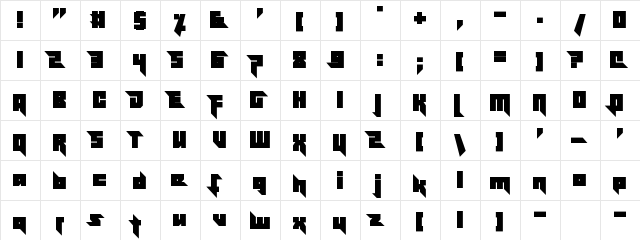
Effective Power Regular
Design Context for Effective Power Typeface
Effective Power has the bold swagger of sports branding: strong, assertive letterforms designed to dominate headlines and jerseys alike.
Built for sports team identities, athletic apparel, event posters, and high-energy promotional material.
Pro Tip: Effective Power thrives on contrast — try it large, bold, and tight against a clean background for maximum visual impact.